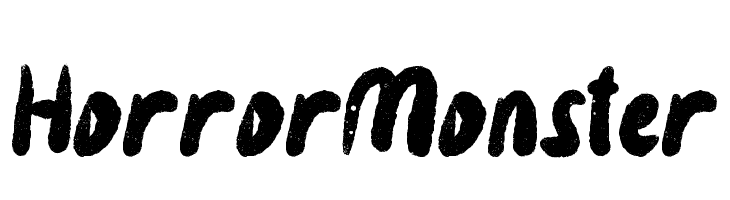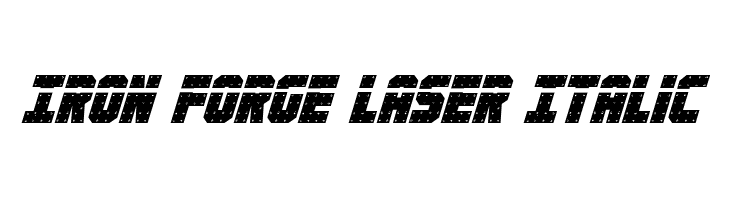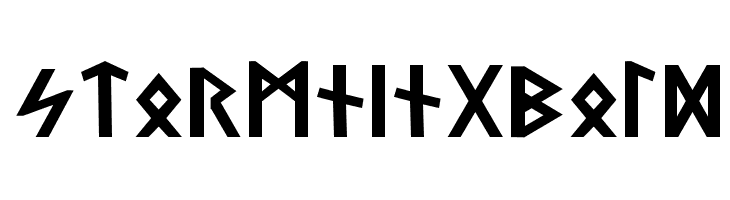
A bold, hand-drawn font with textured, playful characters.
A sophisticated and elegant handwritten font with fluid, continuous strokes.
A bold, angular font inspired by ancient runic alphabets with a striking geometric design.
A bold, distressed font with a vintage, rugged appearance.
A classic serif font with elegant, refined letterforms and a modern twist.
A playful, decorative font with characters enclosed in flag-like shapes, ideal for festive designs.
A bold, futuristic font with a halftone effect and angular design.
A playful, hand-drawn font with a whimsical and dynamic style.
A casual, handwritten font with a fluid and natural flow.
Handwritten cursive script font.